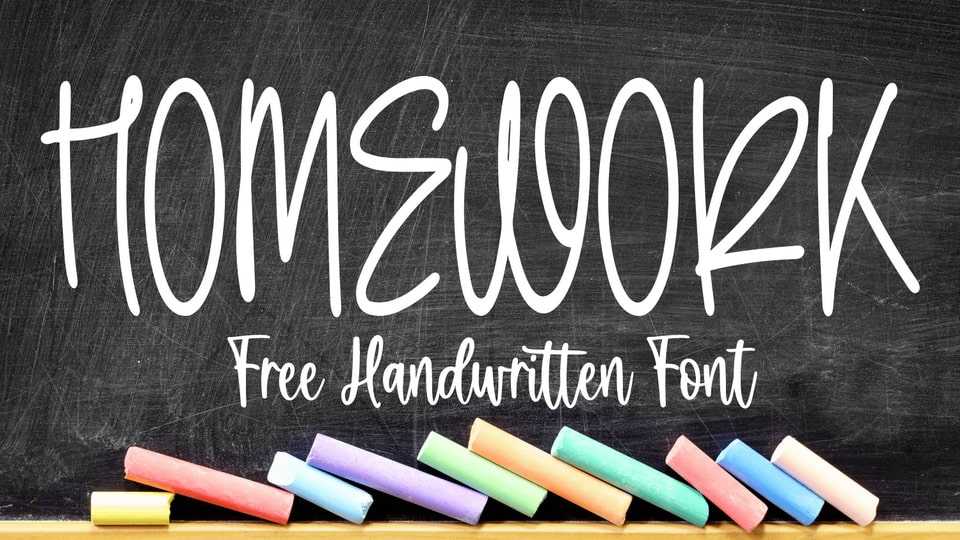
Download Homework font, a lovely handwritten typeface perfect for crafters and graphic artists alike. Add it to your most creative ideas, and notice how it makes them come alive.